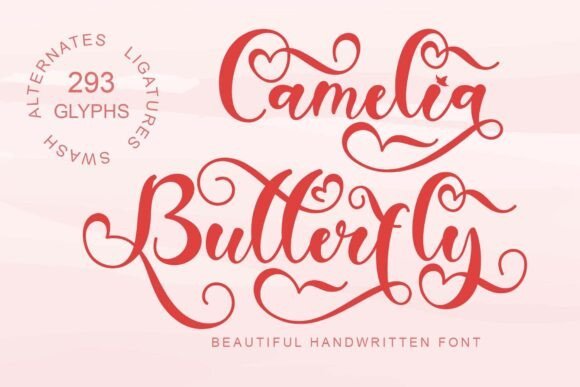
Have you ever found yourself staring at a blank page, waiting for inspiration to strike? For designers, those moments can be the most thrilling – and intimidating. But what if you could bring a dash of personality to your projects with just a few clicks? Enter the Camelia Butterfly Font, a beautiful handwritten font that’s perfect for adding a touch of whimsy to your designs.
This lovely font is designed to evoke the feeling of delicate petals and gentle wings, making it a perfect choice for projects that require a soft, romantic touch. From Valentine’s Day cards to wedding invitations, the Camelia Butterfly Font is a valuable addition to any designer’s toolkit. Its extensive character set and multilingual support make it a versatile choice for designers working on a wide range of projects.
Camelia Butterfly Font Key Features
- Unique Characteristics: Hand-drawn design with intricate details, realistic butterfly and flower elements, and a touch of whimsy
- Font Style: Script, calligraphy, and handwritten styles available for a variety of creative applications
Camelia Butterfly Font Review
When I first laid eyes on the Camelia Butterfly Font, I couldn’t help but be charmed by its whimsical, hand-painted aesthetic ✨. The font’s unique blend of vintage and playful elements makes it perfect for adding a touch of personality to any design project. The subtle imperfections and organic feel of the font give it a human touch that’s hard to find in more polished, commercial fonts.
The Camelia Butterfly Font also excels at conveying a sense of elegance and sophistication ✨. The delicate curves and intricate details make it an excellent choice for high-end branding, wedding invitations, or any other project where a touch of refinement is needed.
- ⚠️ The font may not be the best choice for body text, as its readability can be compromised at smaller font sizes.
- ⚠️ Some users may find the font’s whimsical nature to be too distracting or unconventional for their design needs.
Overall, the Camelia Butterfly Font is a delightful addition to any designer’s toolkit. While it may have its limitations, its unique charm and versatility make it a great choice for the right project. If you’re looking to add some personality and whimsy to your designs, the Camelia Butterfly Font is definitely worth considering.
Camelia Butterfly Font: A Practical Application Guide
For the most beautiful results, use the Camelia Butterfly Font for titles, headings, and other emphasis text.
Experiment with different font sizes and colors to add visual interest to your design.
Use the Camelia Butterfly Font for invitations, posters, and other creative projects where a whimsical touch is desired.